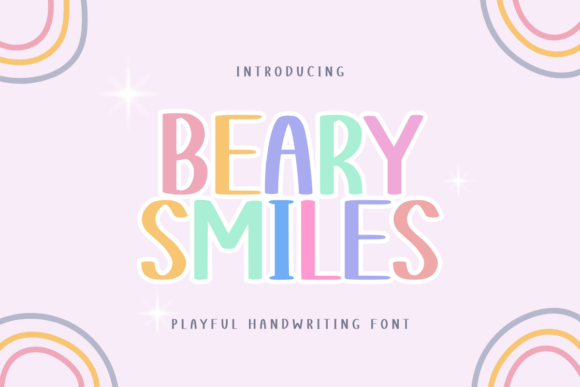
Bring a Smile to Your Projects with Beary Smiles Font
Do you remember the feeling of scribbling in your favorite notebook as a child? The way your handwriting seemed to dance across the page, full of personality and charm? For many of us, this is a nostalgic and creative moment that sparks our love for handmade projects. Whether you’re a crafter, artist, or simply someone who enjoys adding a personal touch to your designs, Beary Smiles Font is here to bring that same sense of whimsy and friendliness to your projects.
This adorable handwriting font is designed to evoke a warm, handcrafted feeling that’s perfect for a variety of applications, from craft projects and planners to stickers and kids’ worksheets. With its simple strokes and smooth curves, Beary Smiles Font is a valuable tool for designers who want to add a touch of personality to their work.
Beary Smiles Font Key Features
- Font Family: Beary Smiles is a modern sans-serif font designed to evoke a sense of warmth and approachability. It’s ideal for use in branding, advertising, and digital media.
- Unique Character: The Beary Smiles font features a distinctive rounded shape and friendly feel, setting it apart from more traditional sans-serif fonts.
Beary Smiles Font Review
Overall, I think the Beary Smiles Font has some lovely qualities that make it suitable for certain projects, but it’s not without its limitations. Let’s dive into the good stuff first!
- ✨ The Beary Smiles Font has a unique and playful character that can add a touch of whimsy to your designs. The rounded edges and subtle imperfections give it a hand-drawn feel that’s hard to replicate with more traditional fonts.
- ✨ The font is highly customizable, with a wide range of styles and weights available. This makes it easy to adapt to different design contexts and moods.
- ⚠️ The Beary Smiles Font can be a bit overwhelming when used in large blocks of text. The irregularities and imperfections that make it so charming in small doses can become tiring to read when used extensively.
- ⚠️ The font may not be the best choice for formal or professional designs, as its playful nature can come across as unprofessional or immature.
Overall, I think the Beary Smiles Font is a great choice for projects that require a lighthearted and approachable tone. Just be mindful of its limitations and use it sparingly to avoid overwhelming your audience.
Getting the Most Out of Beary Smiles Font
To get the most out of Beary Smiles Font, use it for:
1. Whimsical and playful designs.
2. Children’s book illustrations.
3. Branding for family-friendly businesses.
4. Creating a friendly and approachable atmosphere in your design.
Beary Smiles Font is commonly used for:
1. Children’s party invitations.
2. Baby shower invitations.
3. Family business logos.
4. Social media graphics for family-friendly brands.
Alternatives to Beary Smiles Font
Great Vibes is a beautiful, modern script font that’s perfect for creating a fun and playful atmosphere. It’s ideal for use in branding, advertising, and social media graphics. Great Vibes is a more elegant and sophisticated alternative to Beary Smiles Font, making it suitable for a wider range of applications.
Lobster is a popular, cursive font that’s commonly used in digital design. It’s great for adding a touch of whimsy and personality to your designs. While Lobster is similar to Beary Smiles Font in terms of its playful feel, it has a more relaxed and casual vibe, making it suitable for use in social media, blogs, and other informal applications.
Alex Brush is a elegant, handwritten font that’s perfect for creating a personal and intimate atmosphere. It’s ideal for use in branding, invitations, and other design projects where you want to convey a sense of sophistication and refinement. Alex Brush Font is a more refined and polished alternative to Beary Smiles Font, making it suitable for use in high-end design projects.